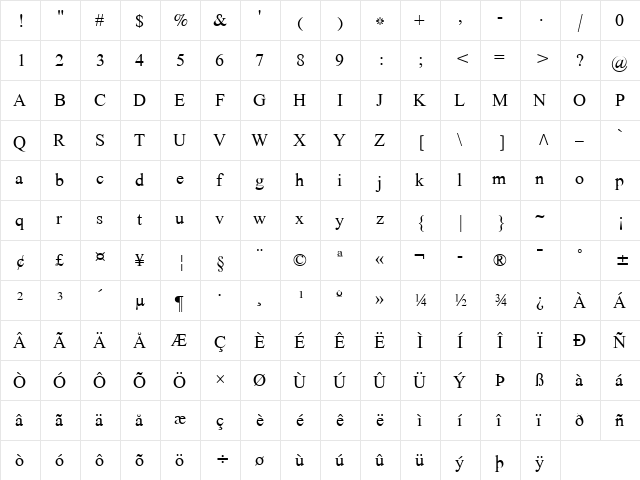
Scheherazade Regular
| Foundry | SIL International |
| Designer | SIL International |
Design Context for Scheherazade Typeface
Scheherazade offers clean, dependable letterforms without strong stylistic allegiance, making it a practical choice for designers who need flexibility.